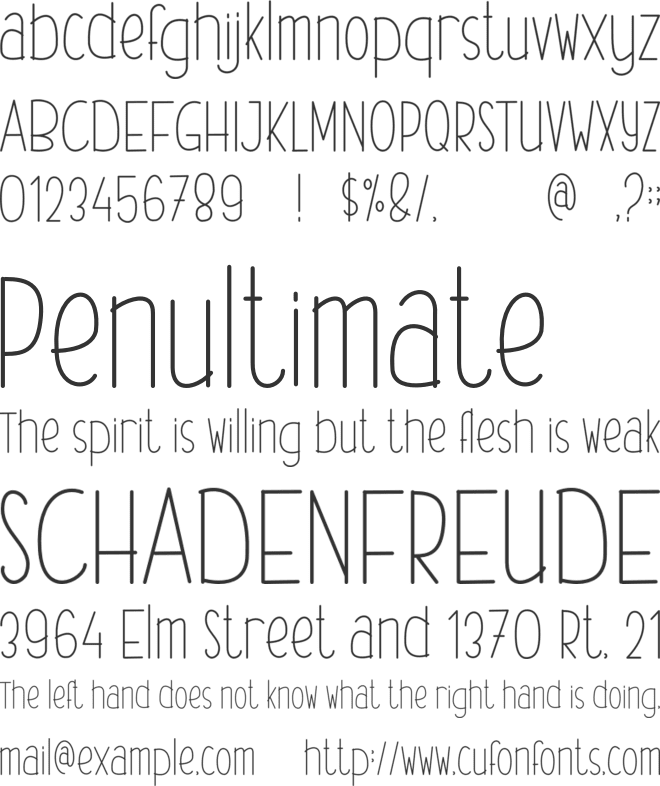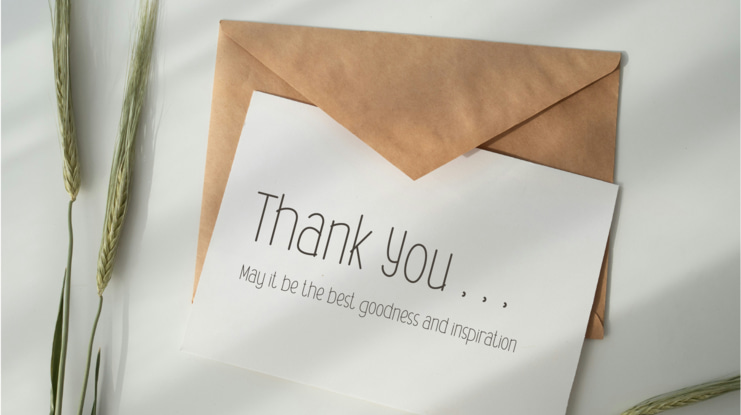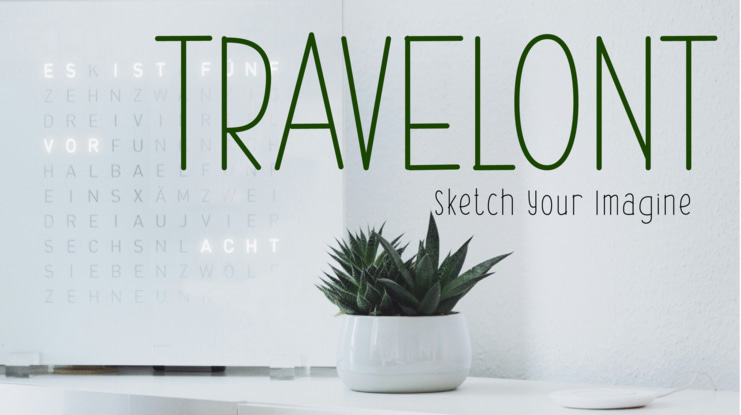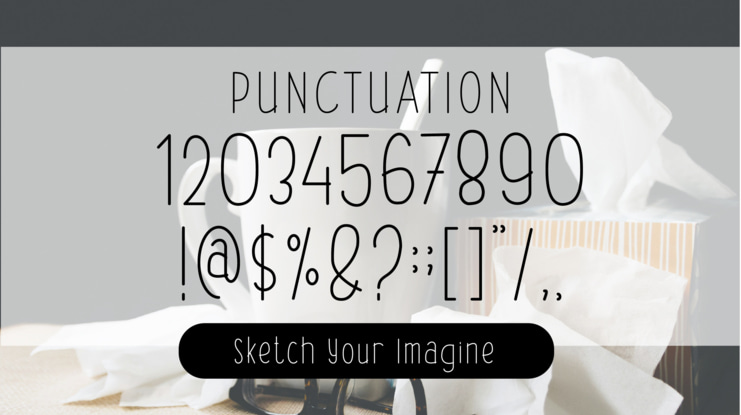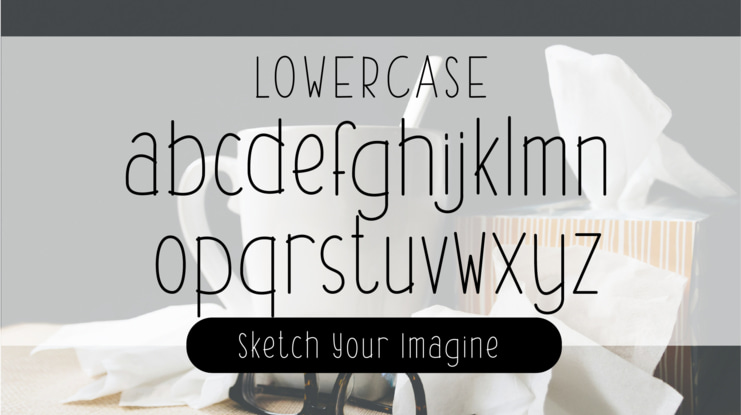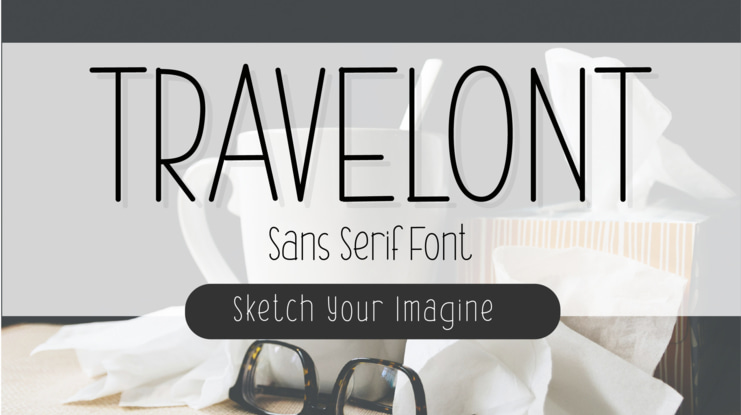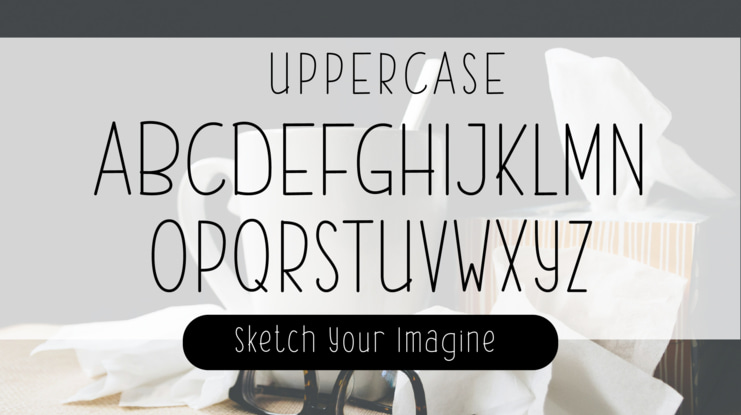
Travelont Font Family
Want to add a casual yet charming touch to your creative projects?
Trafelont comes with a sketch style font, suitable for your various design needs!
Make every project special – from wedding invitations, party decorations, to social media posts.
Trafelont is ready to bring a unique personal touch to your work.